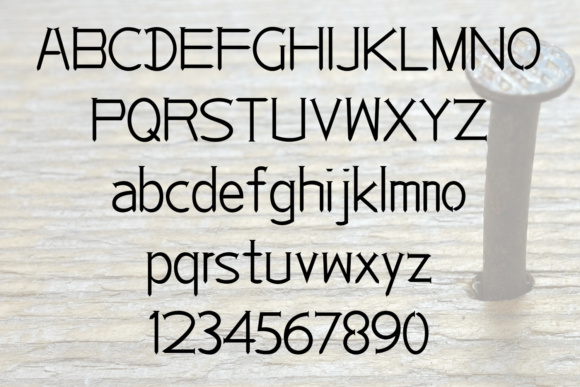
Introduction to Nails Font
Have you ever been brainstorming ideas for a creative project, staring at a blank page, and suddenly, a spark of inspiration hits? For designers, that moment is often the result of having the right tools and resources at their fingertips. One such game-changer is the Nails Font – a unique typeface that adds an extra layer of creativity to any project.
With its striking look, the Nails Font is perfect for making headlines stand out, creating eye-catching posters, or adding a touch of personality to logos. Whether you’re working on a free download or a high-quality design resource, this font is sure to elevate your project. And, with a transparent background option, you can easily incorporate it into your designs without any hassle.
Nails Font
- High-quality design: Nails Font features crisp, clear, and well-designed characters perfect for creative projects.
- Unique characteristics: Nails Font boasts a unique, modern aesthetic with a blend of geometric and minimalist styles.
- Perfect for creative projects: Ideal for graphic designers, digital artists, and anyone working on a creative project that requires a stylish and modern font.
Honest Review: Nails Font
As a designer, I’m always on the lookout for high-quality design resources that can elevate my creative projects. Recently, I had the chance to try out the Nails Font, and I must say, it’s a great addition to any design arsenal.
Here’s what I love about the Nails Font: ✨ It’s a free download, which is always a bonus for designers working on tight budgets. ✨ The font has a clean and modern design that works well for a variety of creative projects, from fashion to beauty. ✨ The font files come in a range of formats, including OTF and TTF, making it easy to use across different platforms.
One of the standout features of the Nails Font is its transparent background, which makes it easy to overlay on images and other design elements.
- Modern design that works well for fashion, beauty, and other creative projects
Nails Font
Nails Font is perfect for a variety of creative projects, including blog posts, social media graphics, and product designs. Its transparent background makes it easy to combine with other design elements.
Getting the Most Out of Nails Font